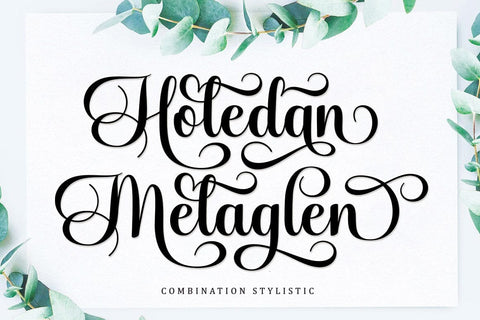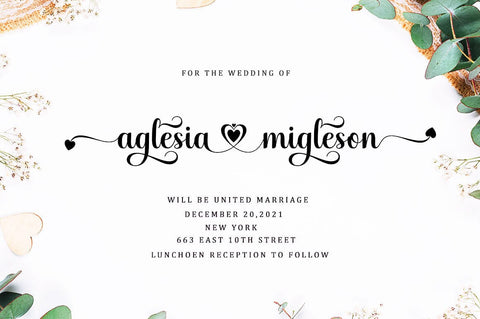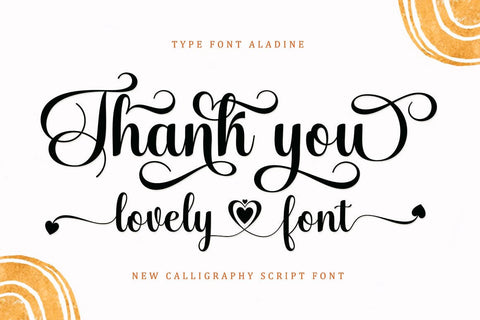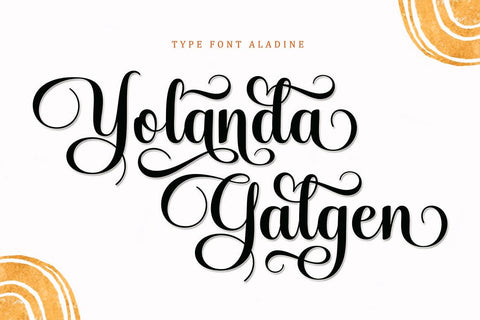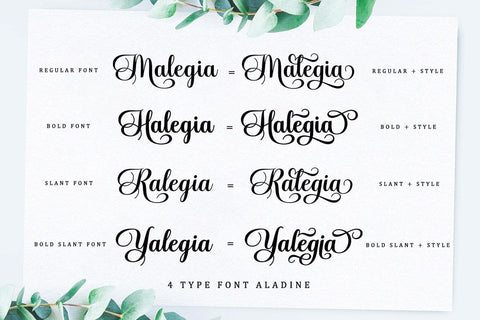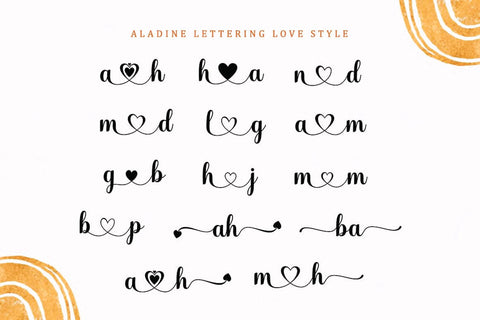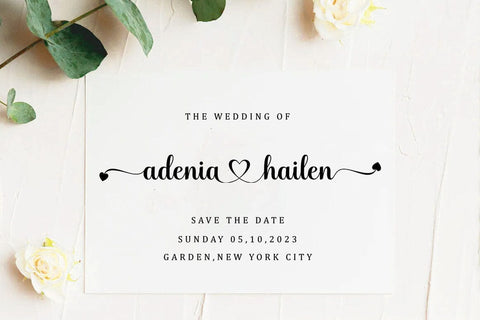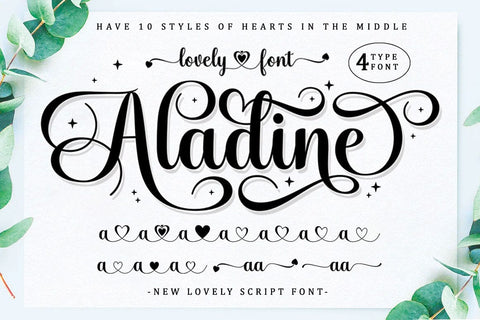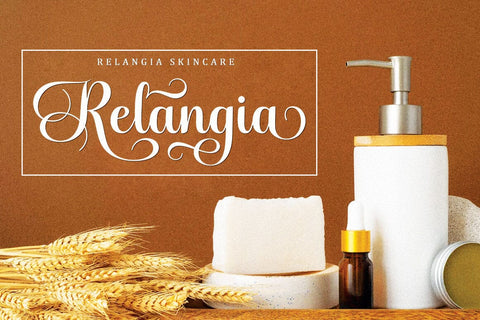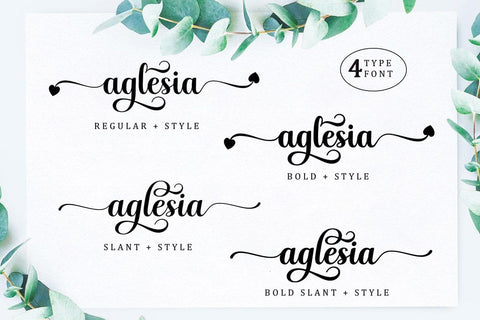
Aladine Lovely Script Font
Aladine is attractive because it is sleek, clean, feminine, sensual, glamorous, simple and very easy to read, thanks to its luxurious letter joints. I also offer a number of viable alternative styles for all letters. Classic style is very suitable to be applied in various formal forms such as invitations, labels, restaurant menus, logos, fashion, make up, stationery, novels, magazines, books, greeting cards/weddings, packaging, labels or all kinds of advertisements. for your purposes. . . . . . .
Feature: Lowercase letters start and end the swash
10 Styles Connect hearts
20 kinds of styles
-Regular
-Bold
-Italic
-Bold Italic
Contains full set:
-Uppercase -Lowercase -Alternative -The binder -Punctuation -Number
-Multilingual support.